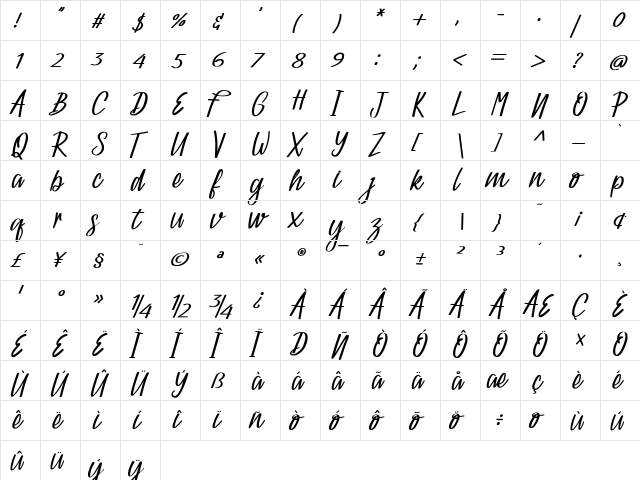
Catetin Regular
Design Context for Catetin Typeface
Catetin is a composed and adaptable typeface that performs quietly and consistently across a wide range of design contexts.